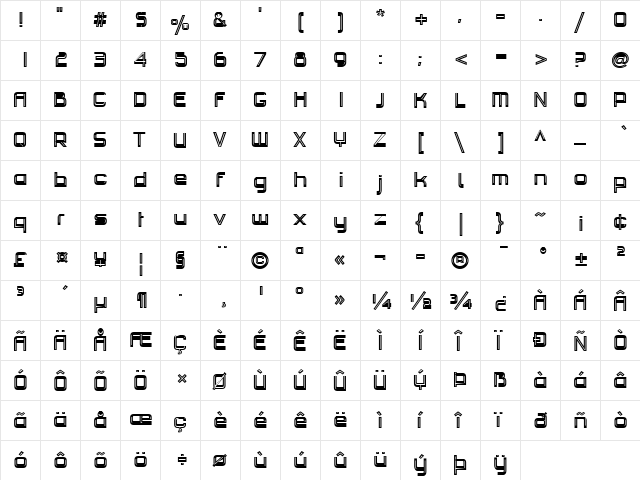
PF HausSquare Pro Bold Outline
Design Context for PF HausSquare Pro Typeface
PF HausSquare Pro brings ornamental detail and strong personality to headlines and identities, where visual impact matters more than quiet functionality. Its bold stroke weight gives it real presence on the page.
Font Pairing: Pair with a clean neutral sans-serif for body copy to let PF HausSquare Pro's character lead without overwhelming the composition.
Pro Tip: Use PF HausSquare Pro exclusively at display sizes — it was designed to be seen, not read at length. Let a neutral companion handle body copy.